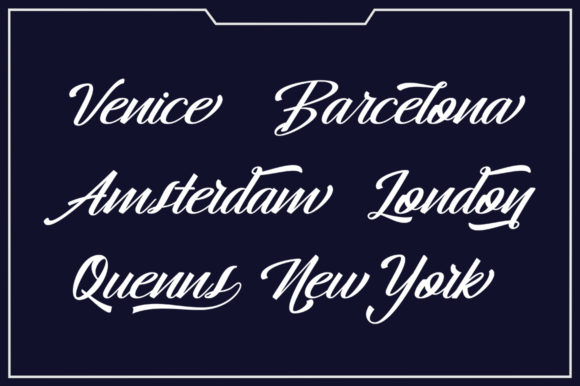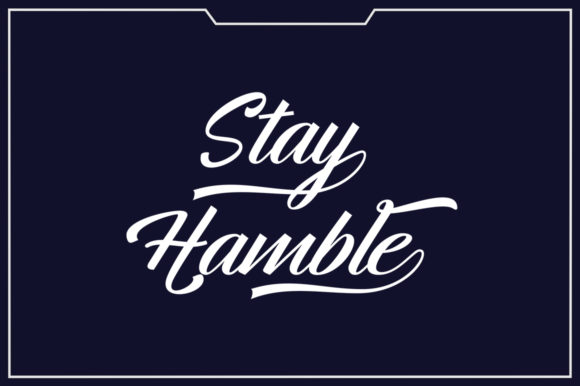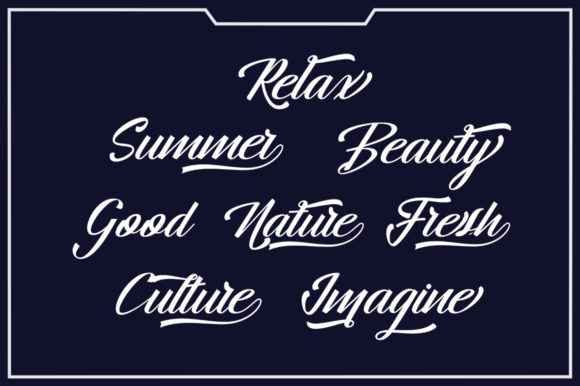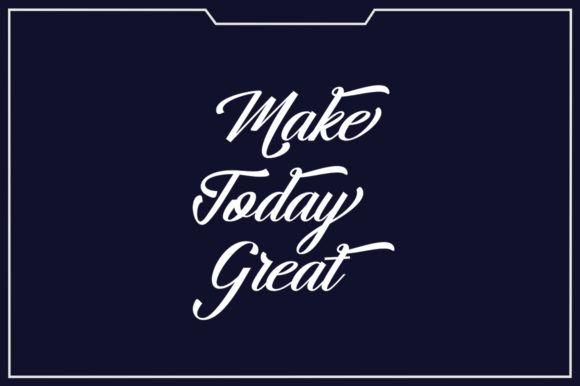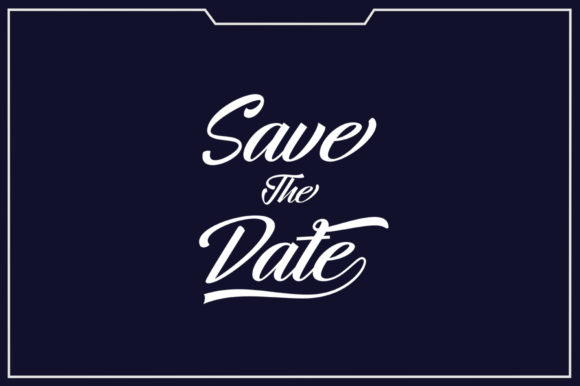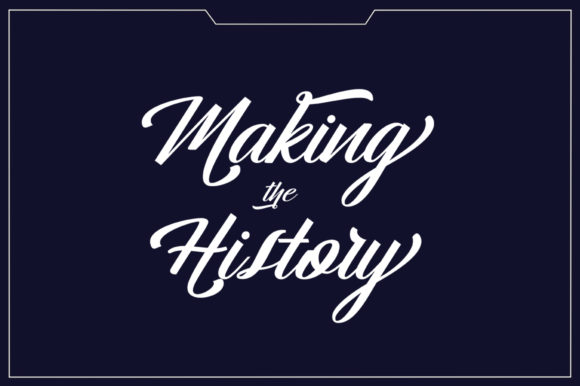
Introducing Hangberd Script Font: Elevate Your Designs with Elegance and Sophistication
In the world of typography, script fonts hold a special place for their elegance, fluidity, and ability to add a touch of sophistication to any design. Among the myriad of script fonts available, Hangberd Script Font stands out for its modern appeal and harmonic style, making it an excellent choice for designers and crafters looking to create stunning calligraphy designs. In this article, we’ll dive deep into the features of Hangberd Script Font, explore its uses, and understand why it has become a go-to for professionals and hobbyists alike.
The Essence of Hangberd Script Font
The Hangberd Script Font is a modern script font that boasts a unique harmonic style. This characteristic enables it to produce amazing calligraphy designs that are not only visually appealing but also carry a sense of fluidity and movement. The font’s design is carefully crafted to ensure that each letter complements the next, creating a seamless flow that is perfect for a wide range of applications.
One of the key advantages of Hangberd Script Font is its versatility. It is not limited to a specific use case but can be applied across various mediums and projects. Here are some of the many ways you can utilize Hangberd Script Font:
- Logos: Create a memorable brand identity with a custom logo that exudes elegance and professionalism.
- Wedding Invitations: Add a touch of romance and sophistication to your wedding invites, making them truly unforgettable.
- Titles and Headings: Elevate your publications, websites, or advertisements with stylish titles that capture attention.
- Signatures: Personalize your emails, documents, or artworks with a beautiful, unique signature.
- T-Shirts and Merchandise: Design eye-catching apparel and products that stand out from the crowd.
- Letterheads and Stationery: Give your business correspondence a professional and luxurious feel.
- Signboards and Labels: Create attractive signage and labels for your store, event, or product.
- Posters: Design stunning posters for events, promotions, or awareness campaigns that grab attention.
Why Choose Hangberd Script Font?
With so many script fonts available, what makes Hangberd Script Font a preferred choice? Here are a few reasons:
- Modern Appeal: Hangberd’s contemporary design ensures your projects look current and stylish.
- Ease of Use: The font is easy to read and works well in both digital and print formats.
- Customization: It offers great flexibility for customization, allowing you to tailor it to your project’s specific needs.
- Legibility: Despite its script nature, Hangberd maintains a high level of legibility, making it suitable for longer texts as well.
Tips for Using Hangberd Script Font
To get the most out of Hangberd Script Font, consider the following tips:
- Pair it Wisely: Combine Hangberd with complementary fonts to create visual interest and hierarchy in your designs.
- Adjust Letter Spacing: For better readability, especially in longer texts, adjust the letter spacing to ensure a comfortable look.
- Play with Colors: Don’t be afraid to experiment with different colors to find the perfect match for your design’s theme.
Hangberd Script Font is a powerful tool for designers and crafters looking to add a touch of elegance and sophistication to their projects. Its modern harmonic style, versatility, and ease of use make it an excellent choice for a wide range of applications. Whether you’re creating a logo, wedding invitation, or poster, Hangberd Script Font can help you achieve your design goals with stunning results. Explore the possibilities with Hangberd Script Font today and elevate your designs to new heights!